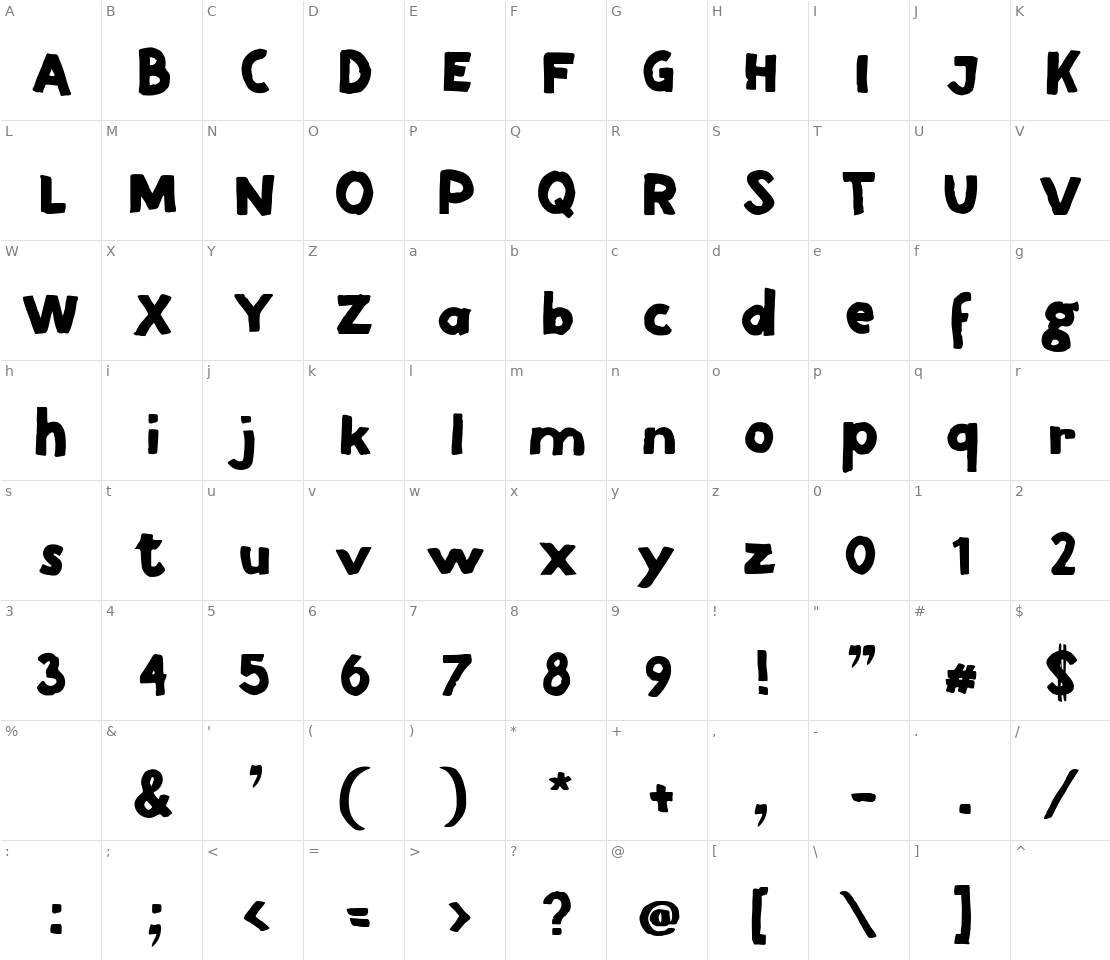
Dirt Road
Dirt Road is a chunky, rounded comic face from Roland Huse Design with heavy strokes and a loose, playful bounce to the letterforms. Everything about it feels casual and a little exaggerated, like hand-lettered signage from a cartoon roadside stand. Best at headline sizes for posters, comics, kids' projects, or anything that wants to be bold and fun without a shred of formality.